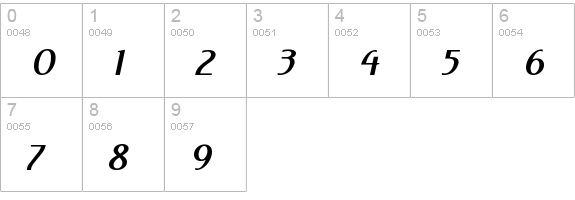
PFRoyale BoldItalic Font Details
PFRoyale BoldItalic is a striking and versatile font that exudes elegance and sophistication. Its bold and italic design commands attention and adds a touch of flair to any project. The perfect choice for creating eye-catching headlines, stylish logos, or elegant invitations, this font is sure to make a statement. What makes PFRoyale BoldItalic even more appealing is that it is available for free download at FontsMarket.com. This means that you can easily access this stunning font and use it in your personal or commercial projects without any hassle. Whether you are a designer looking to add a touch of luxury to your work or a business owner in need of a standout font for your branding, PFRoyale BoldItalic is the ideal choice. Download it today and elevate your designs with this exquisite and free font.